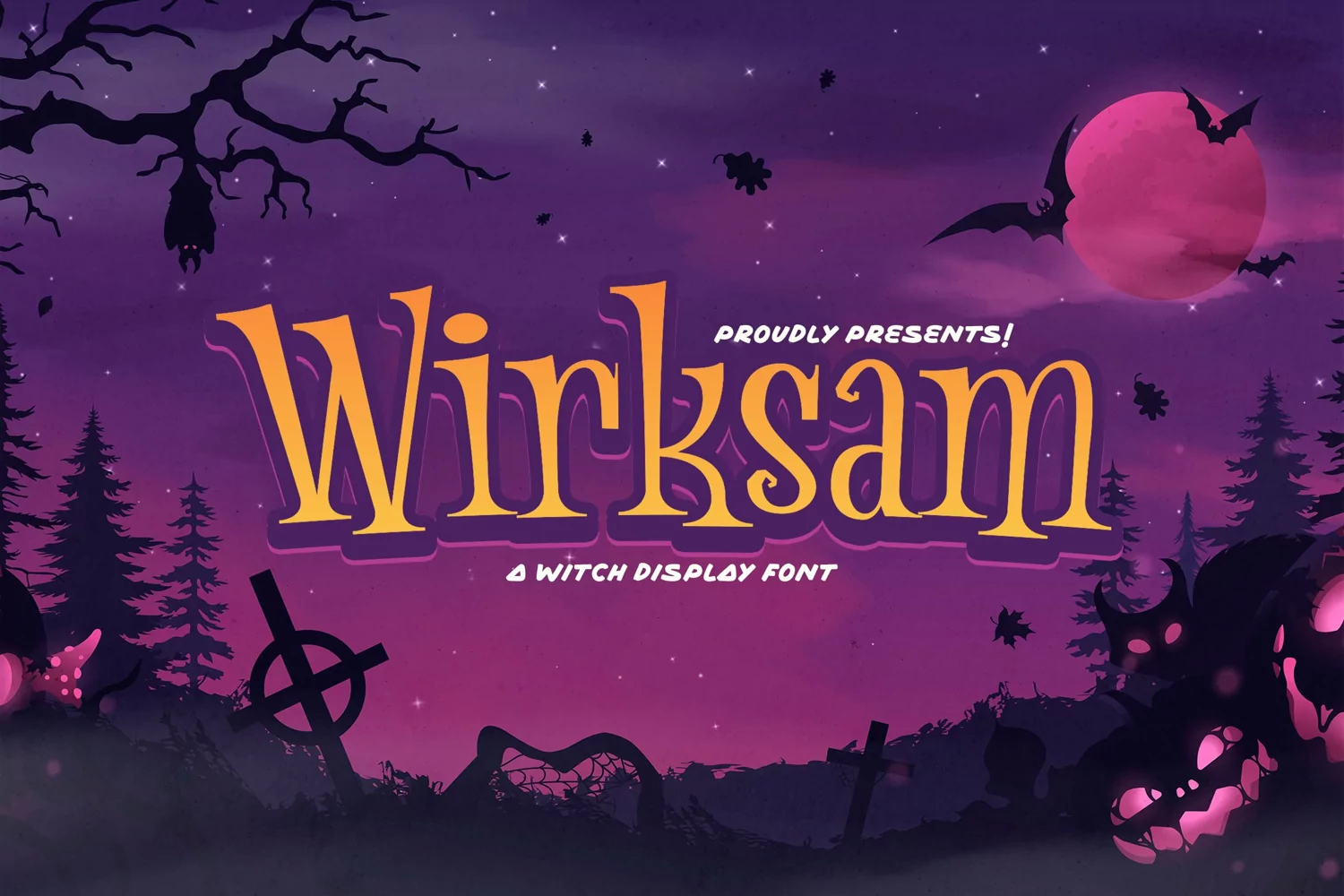
Wirksam is a witch and incredibly unique display font. Designed to become a true favorite. This font has the potential to bring each of your creative ideas to the highest level.